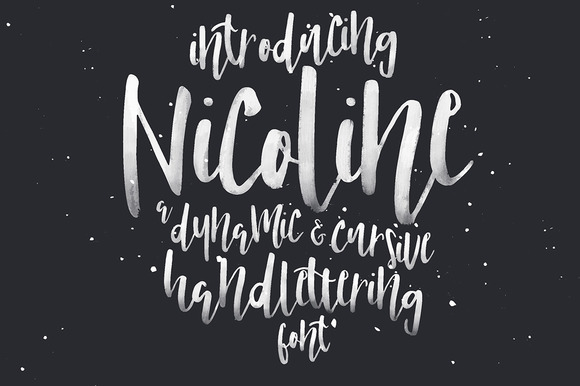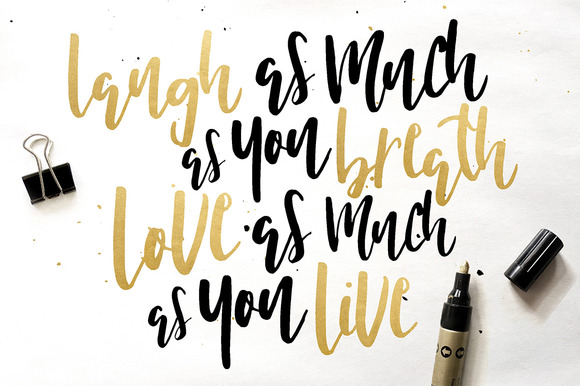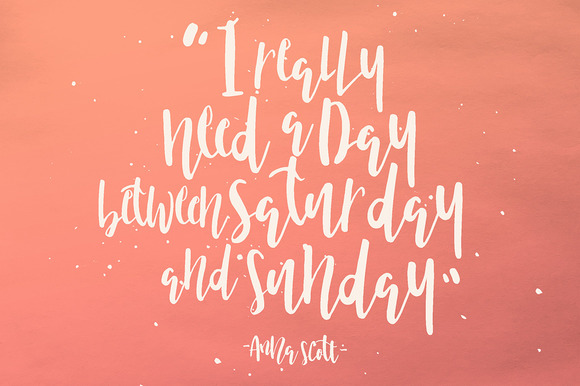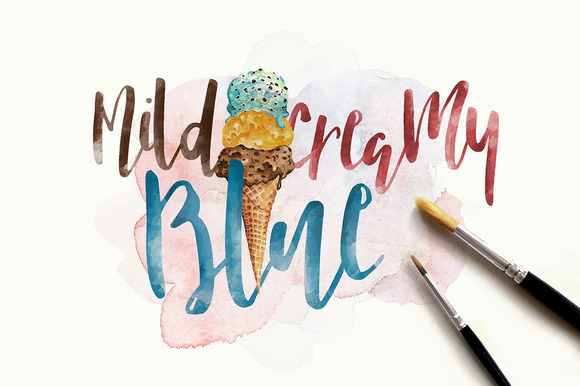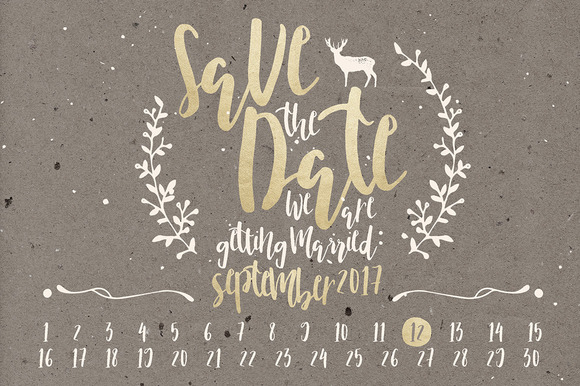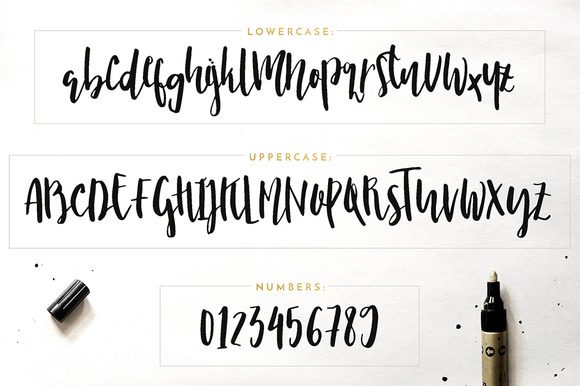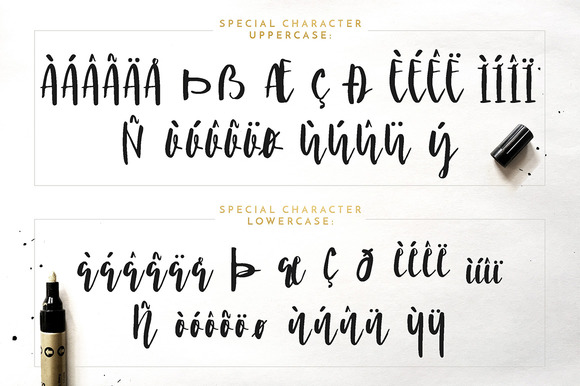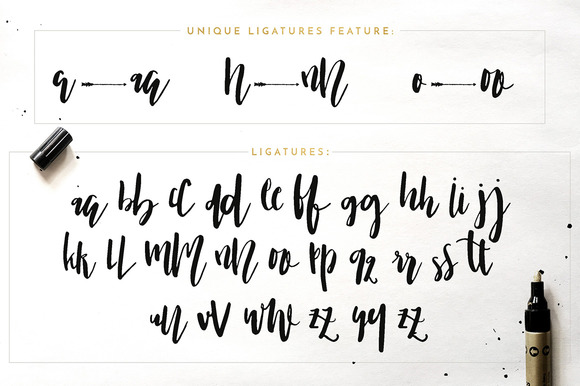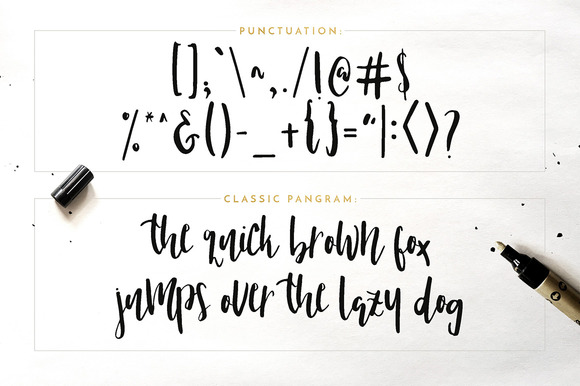
Nicoline Font
About Nicoline Font
Nicoline is a modern hand lettering script font that you can use for various purposes. With its dynamic character, Nicoline is best for wedding cards and invites, greeting card titles, signatures for design work, badges and stickers, logos and return addresses and so forth, you decide!